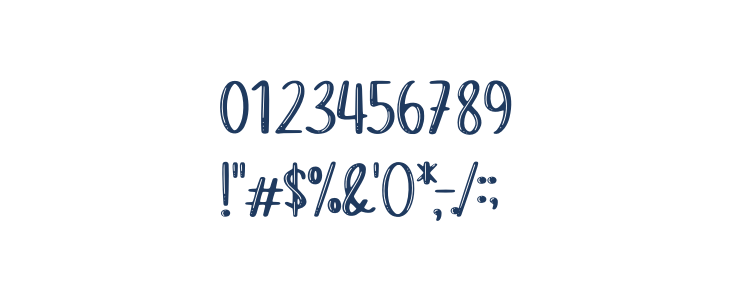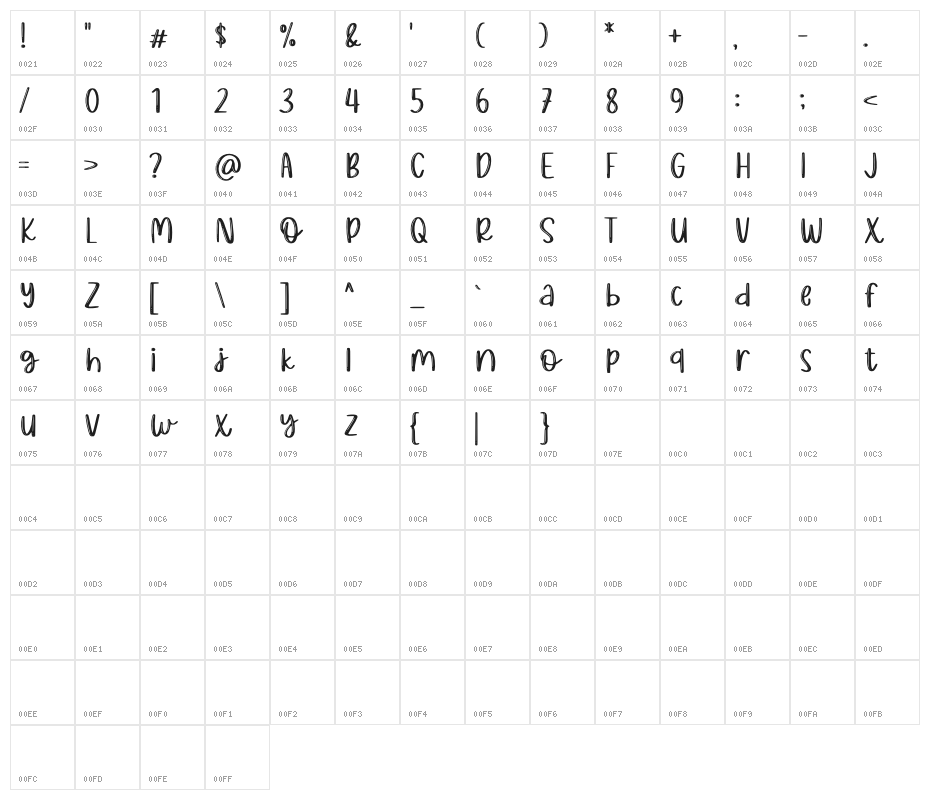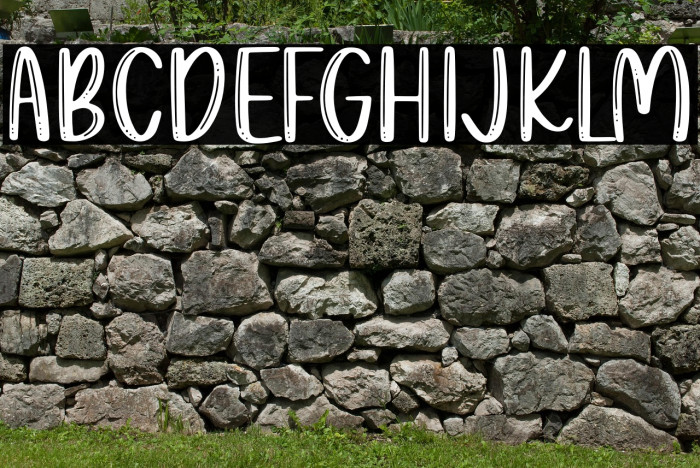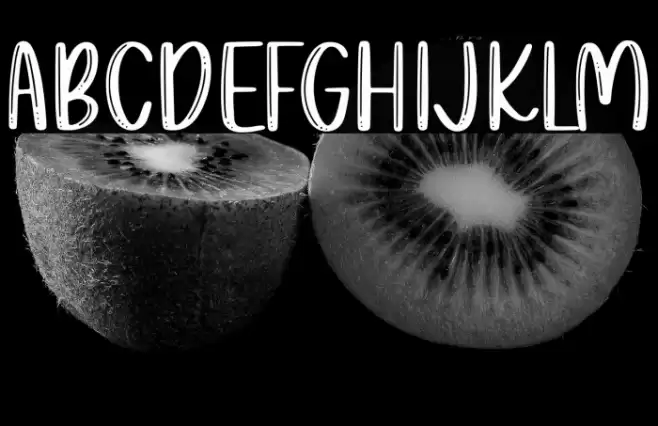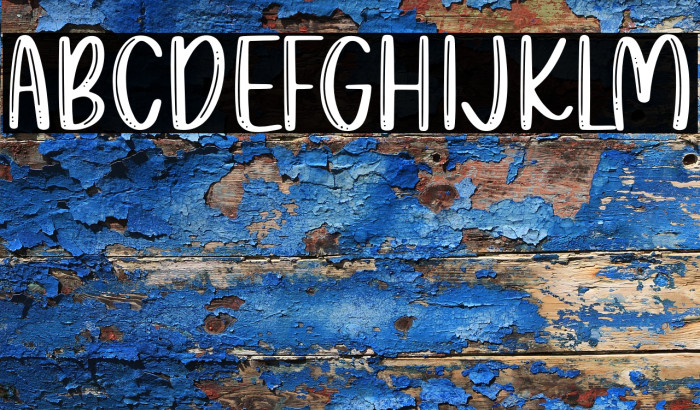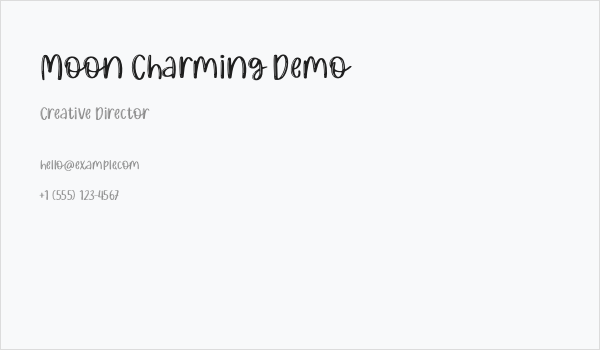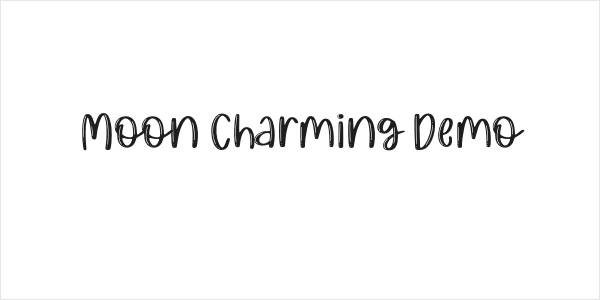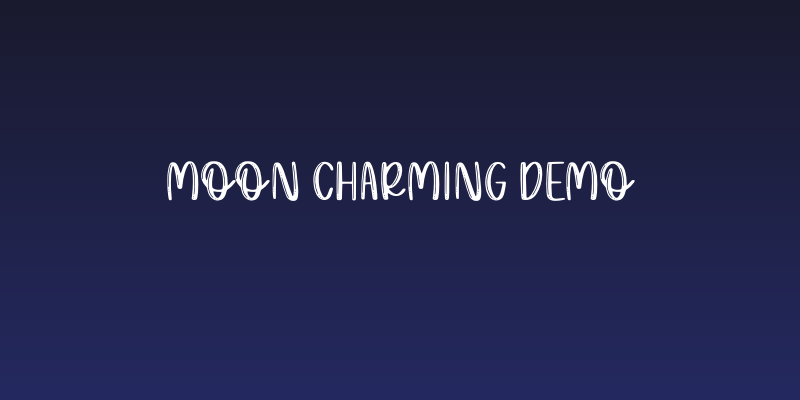
Moon Charming Demo Font
Moon Charming Demo Description
This font features a playful and whimsical style, characterized by its hand-drawn appearance and rounded edges. The letters are slightly irregular, giving it a charming and informal feel. The uppercase and lowercase letters maintain a consistent style, with a slight slant that adds to its casual nature. The numbers and special characters follow the same playful design, making it suitable for creative projects. The strokes are consistent in width, providing a uniform look across all characters. This font is perfect for projects that require a touch of personality and creativity.
| Use Case | Logos, Headlines, Social media graphics |
| Proposed Projects | Ideal for greeting cards, children's books, playful branding, and social media graphics. |